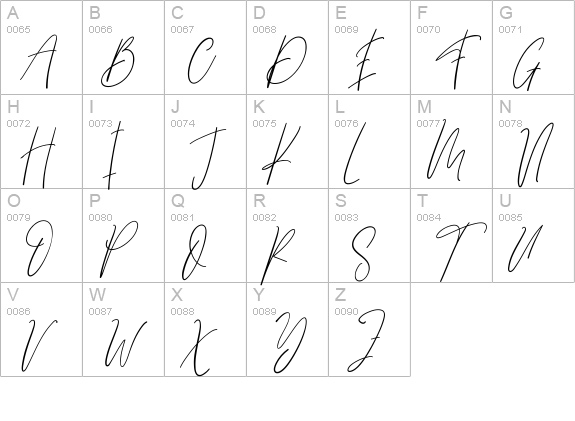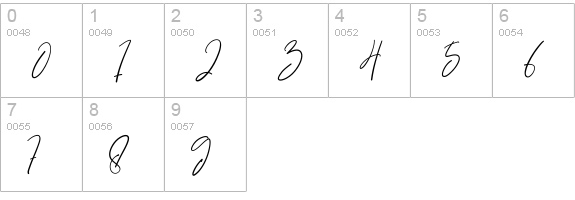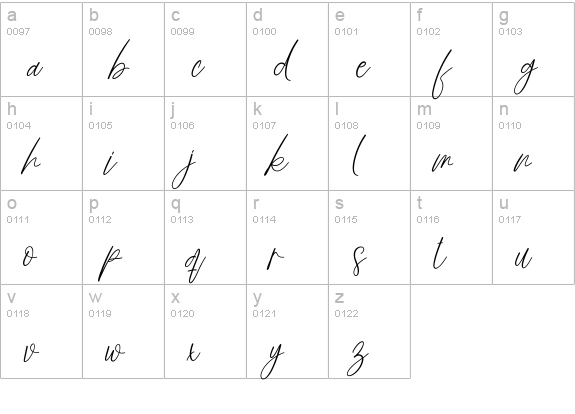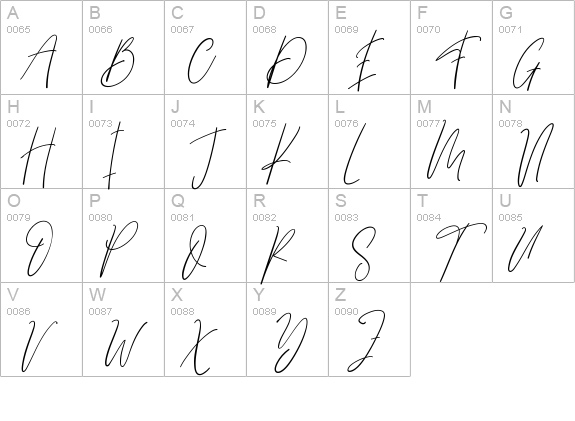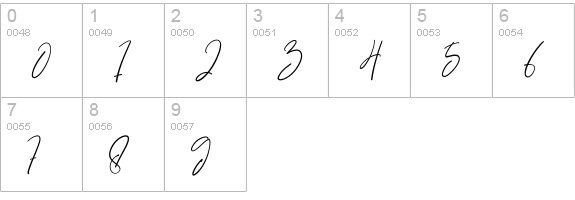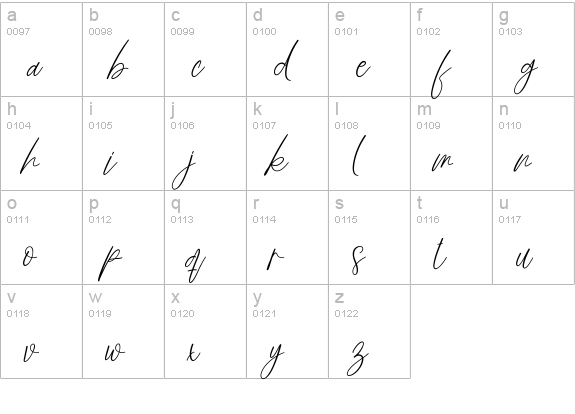
Introducing Butterfly Signature font, a delicate and elegant script typeface inspired by the graceful movements of a butterfly in flight. This font exudes charm and sophistication, making it perfect for a wide range of design projects, from wedding invitations to branding materials. With its flowing lines and intricate details, Butterfly Signature font adds a touch of whimsy and romance to any design.